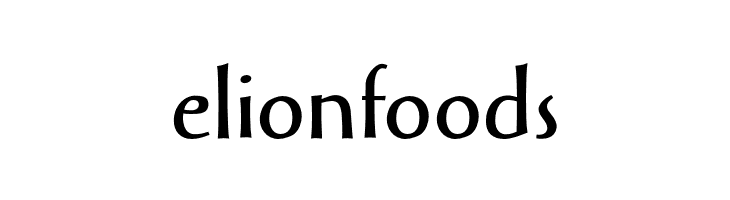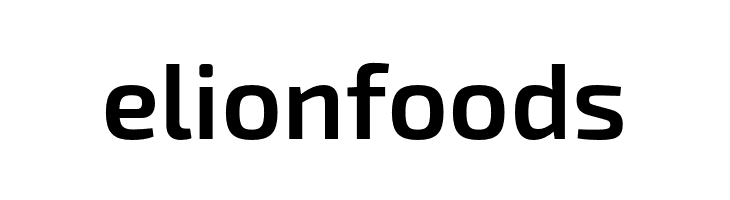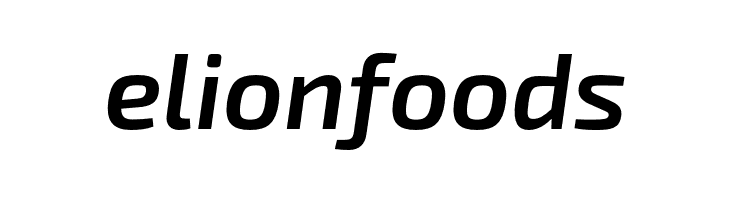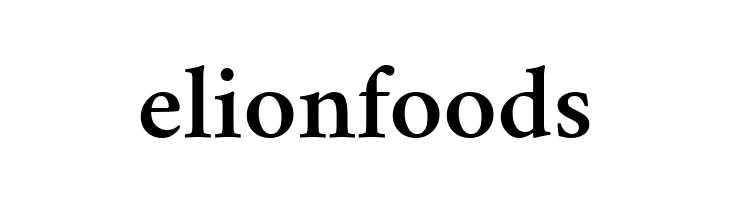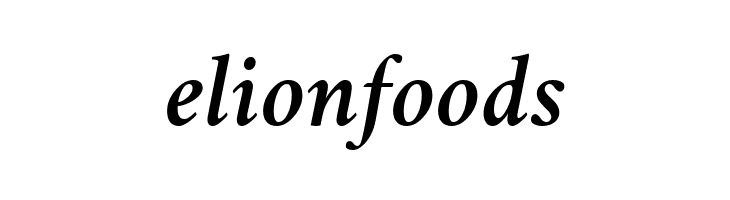
A modern, condensed sans-serif font with semi-bold weight, ideal for clear and space-efficient designs.
A semi-bold, elegant serif font with angular serifs and smooth curves.
A modern, semi-bold typeface with clean lines and excellent legibility.
A modern, semi-bold font with a clean, geometric design.
A modern, semi-bold italic font with medium contrast and a sleek, dynamic style.
A classic serif font with semi-bold weight, offering elegance and readability.
A semi-bold, italic serif font with a classic and elegant style.
A modern, semi-bold, italic sans-serif font with clean lines and balanced proportions.
A clean, modern sans-serif font with a semi-bold weight and balanced proportions.
A modern, semi-bold sans-serif font with excellent readability and a professional appearance.